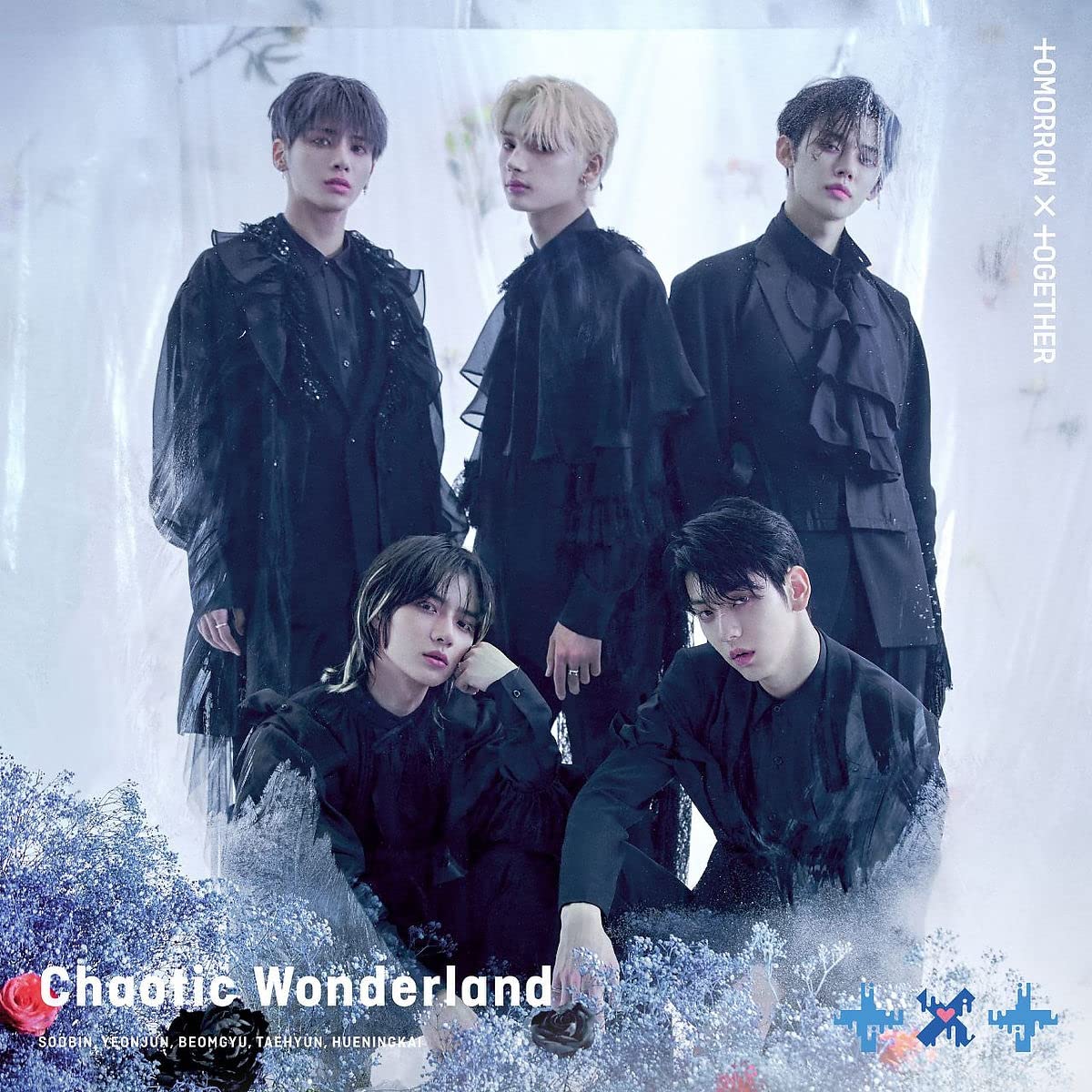
Chaotic Wonderland Font
Fonts in UseChaotic Wonderland is the first Japanese album by Tomorrow X Together (TXT), one of the most popular K-pop boy groups. The album, released in June 2021, consists of twelve tracks, including Japanese versions of some of their hit Korean songs, such as "Can't You See Me?" and "Blue Hour."
The band name and album title are both set in Ciutadella, a geometric sans-serif font family with five weights and corresponding italics designed by Emtype foundry.